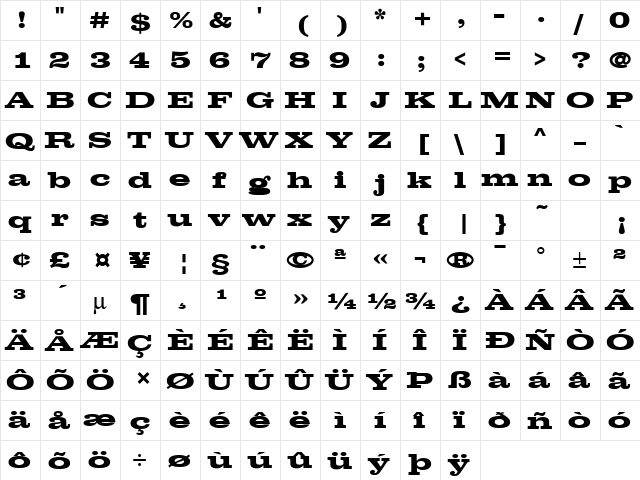
Clarendon Bold Expanded Regular
Design Context for Clarendon Bold Expanded Typeface
Clarendon Bold Expanded combines the readability of serif typography with the visual weight of a slab construction, resulting in a typeface that feels both authoritative and approachable. The heavy weight commands attention and anchors typographic hierarchies.
Works well in editorial design, news publishing, impactful branding, and poster typography.
Pro Tip: Try Clarendon Bold Expanded set tight in headlines for a classic editorial feel. Its slab serifs create strong horizontal rhythm that anchors a page layout.